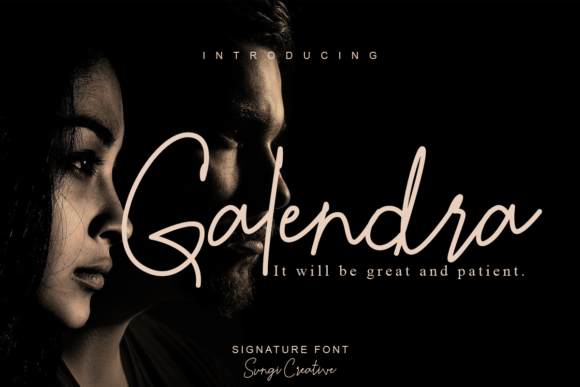
Introducing Galendra Font, a Script Font Family That Unleashes Your Creativity
Embark on a journey of artistic expression with Galendra Font, a script font family crafted to elevate your designs. Dive into the world of calligraphy, crafting handmade logos, dazzling social media posts, or turning your heartfelt words into stunning works of art. Each letter dances with grace and beauty, captivating your audience with its timeless elegance.
Galendra Font: A Symphony of Style and Versatility
With its graceful strokes and alluring curves, Galendra Font is a versatile masterpiece. Whether you're a seasoned designer or just starting your creative journey, this font will elevate your projects to new heights. Whether you're crafting wedding invitations that exude romance, designing posters that demand attention, or creating a captivating brand identity, Galendra Font is your perfect companion.
Unlock Your Creative Potential with Galendra Font
Unleash your inner artist with Galendra Font, a font that transforms ordinary words into visual masterpieces. Say goodbye to boring and predictable designs and embrace the world of beauty and creativity.
Galendra Font: A True Work of Art
Experience the joy of crafting designs that captivate and inspire. Galendra Font is more than just a font; it's a gateway to a world where your creativity knows no bounds. As you glide your cursor across the screen, watch as your words come alive, each letter a brushstroke of artistic brilliance. Let your imagination soar as you create designs that leave a lasting impression.
Galendra Font: Your Key to Design Success
In a world saturated with digital noise, make your voice heard with Galendra Font. Its timeless elegance cuts through the clutter, ensuring your message shines brighter than ever before. From heartfelt letters to bold marketing campaigns, Galendra Font is your secret weapon to capturing attention and leaving a lasting impact.
Why Choose Galendra Font?
Because it's more than just a font; it's an investment in your creativity.
Galendra Font: Where Beauty Meets Functionality
Galendra Font seamlessly blends beauty and functionality, making it the perfect choice for a wide range of creative projects. Bring life to your Instagram feed with captivating posts that draw your audience in. Create enchanting invitations and greeting cards that leave a lasting impression. Design logos that exude professionalism and sophistication. The possibilities are endless.
Experience the Beauty of Galendra Font Today
Don't settle for ordinary fonts. Embrace the extraordinary with Galendra Font. Its elegant strokes, timeless style, and versatility will transform your designs into breathtaking works of art. Elevate your creativity and make a statement with Galendra Font.